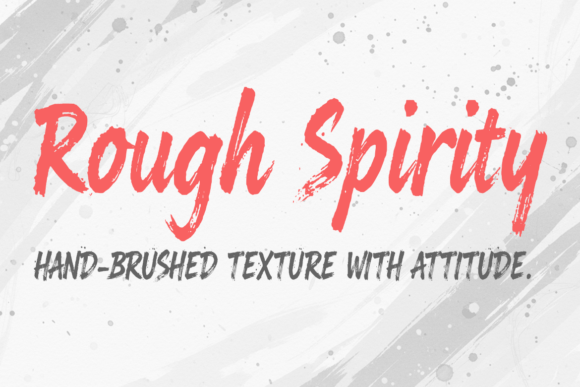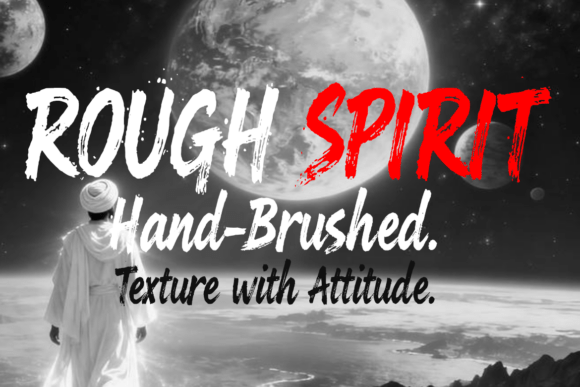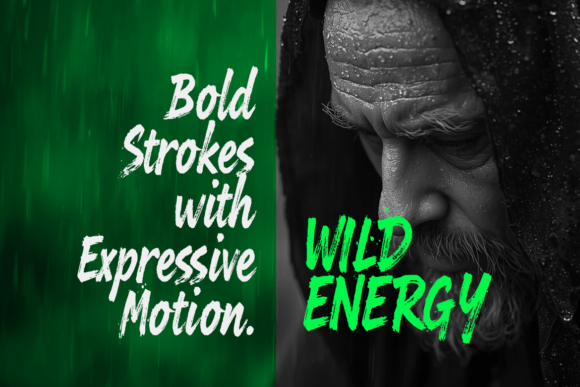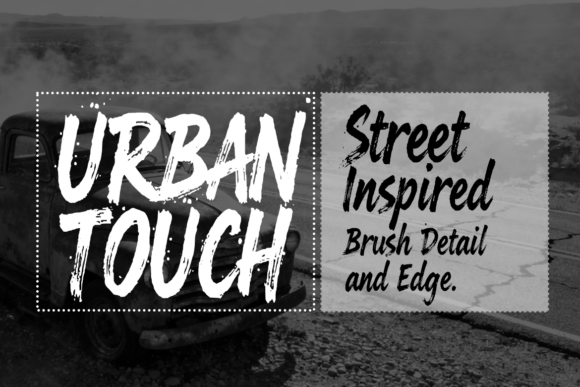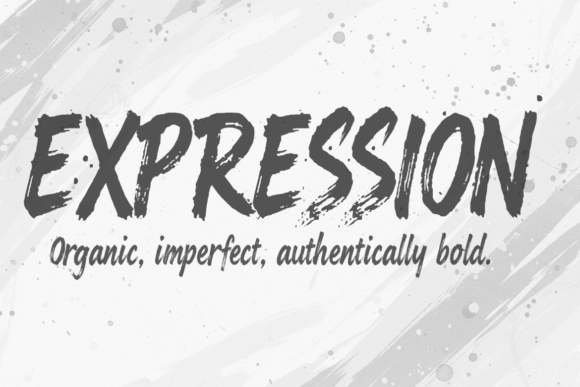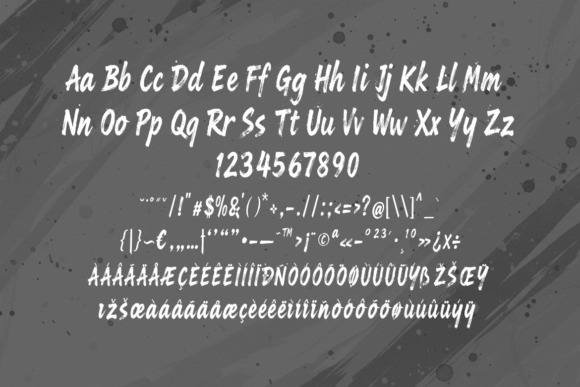
Introduction to Elanova Brush Font
Have you ever stared at a blank canvas, feeling the weight of a creative project’s expectations? You know, that moment when the blank page seems to mock you, daring you to bring your vision to life. It’s a moment when the right design resource can be a game-changer. For designers, the search for the perfect font can be a daunting task, especially when aiming for a unique and impactful visual identity.
That’s where Elanova Brush Font comes in – a bold and expressive hand-painted brush font designed to bring raw energy and artistic character into your projects. This high-quality font is crafted with dynamic strokes and natural texture, capturing the authentic feel of real brush lettering. With its rough edges, fluid movement, and handcrafted imperfections, Elanova Brush Font adds a striking visual presence to any creative work that demands personality and impact.
From social media graphics to branding and packaging, Elanova Brush Font is a valuable addition to any designer’s toolkit. With its transparent background and free download option, you can easily incorporate this design resource into your next project, elevating your creative work with its unique, hand-painted charm.
Key Features of Elanova Brush Font
- High-quality digital font with a unique brush stroke design, ideal for creative projects that require a personal touch.
- Unique brush stroke design creates a dynamic, hand-painted effect, perfect for adding a touch of personality to any creative project.
Honest Review: Elanova Brush Font
I recently had the chance to try out the Elanova Brush Font and I must say, I was quite impressed! This beautiful, hand-drawn font is a great addition to any designer’s toolbox. ✨
One of the things I love about Elanova Brush Font is its high quality. The lines are smooth, the strokes are consistent, and the overall feel is very organic. It’s perfect for any creative project that needs a touch of personality. The font is also available for free download, which is a huge plus in my book. It’s a fantastic resource for designers who are on a budget or just starting out.
The transparent background option is also a nice touch. It allows designers to easily layer the font over different images or colors, which can be a big time-saver. Overall, I’m really happy with the Elanova Brush Font and I think it’s a great choice for any designer looking for a unique and versatile font.
- High-quality lines and strokes
- Organic feel that’s perfect for creative projects
- May not be suitable for formal or professional applications
- Some users may find the font a bit too playful or casual
Overall, I’m really impressed with the Elanova Brush Font. It’s a great addition to any designer’s toolkit and I highly recommend it for any creative project. ⭐️
How to Use Elanova Brush Font
The Elanova Brush Font is a high-quality design resource ideal for creative projects that require a unique and artistic touch. With its transparent background and versatility, it’s perfect for designers looking to add a personal touch to their work.
Tips for Getting the Most Out of Elanova Brush Font
Experiment with different font sizes and colors to create unique and eye-catching designs. Use it in combination with other design elements to add depth and texture to your work.
The Elanova Brush Font is perfect for creative projects such as:
- Artistic typography
- Custom graphics and illustrations
- Brand identity and logo design